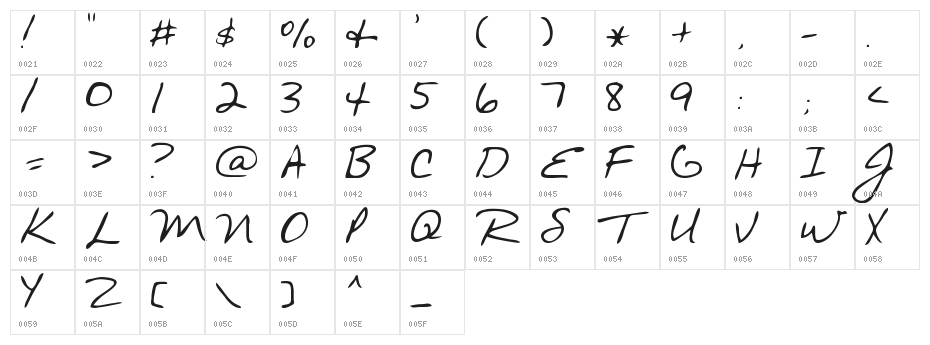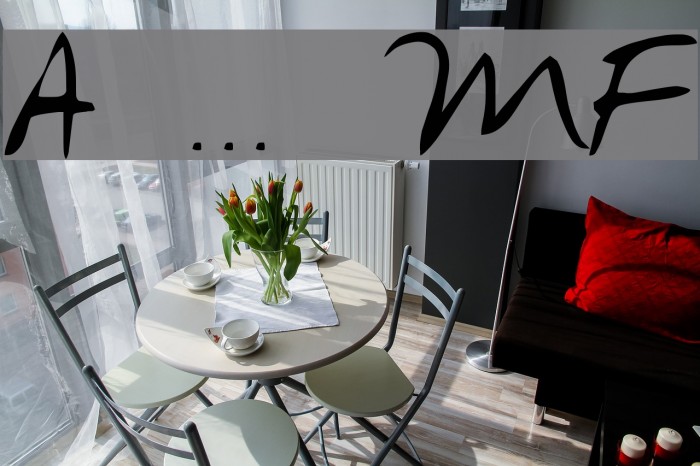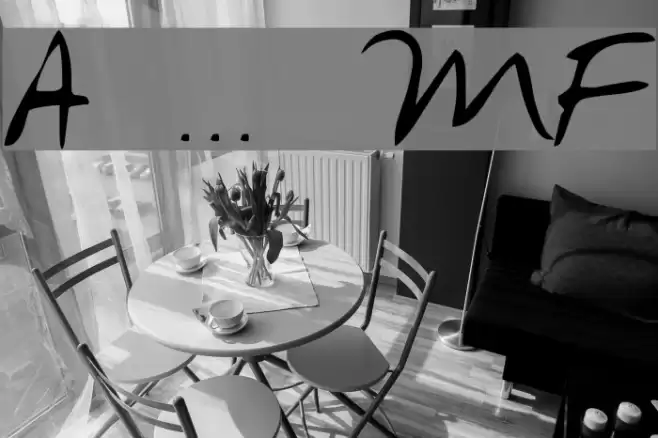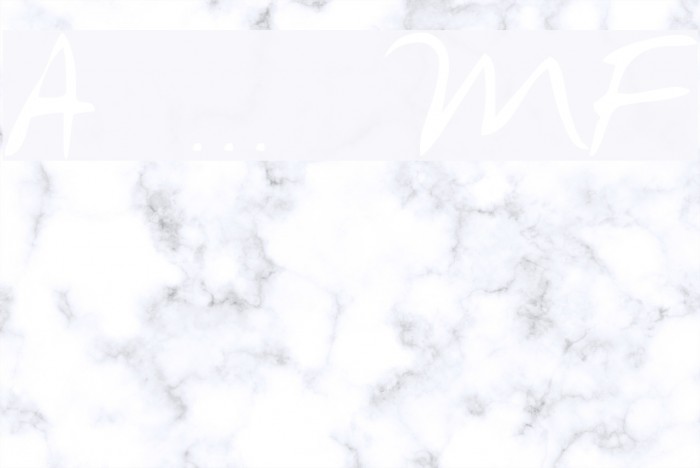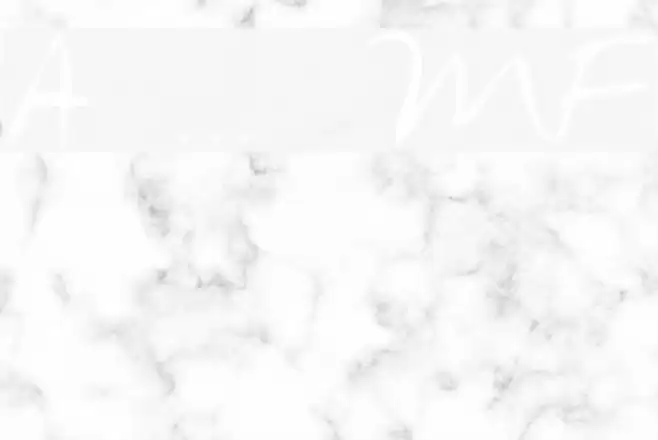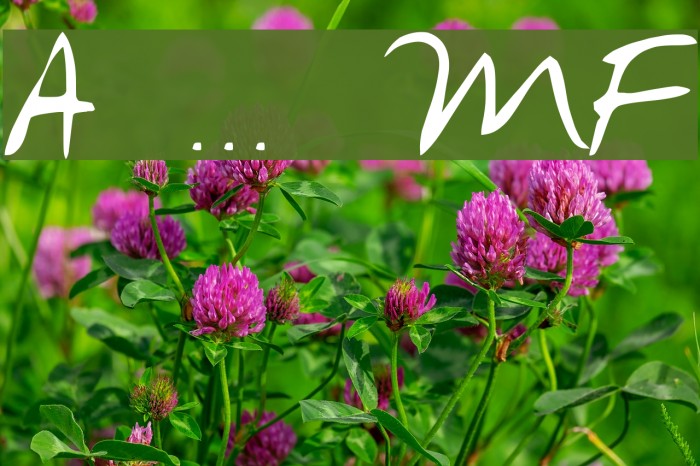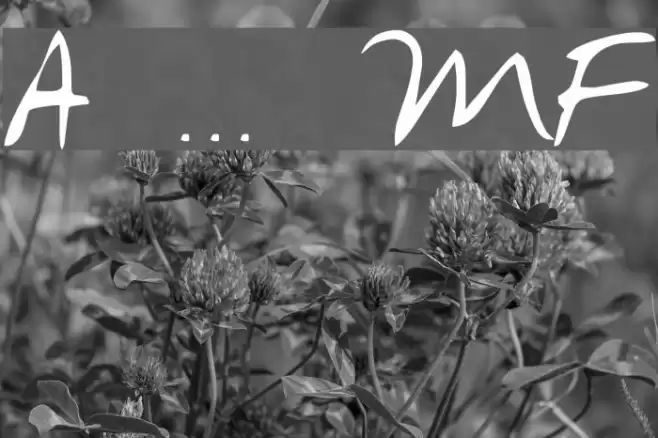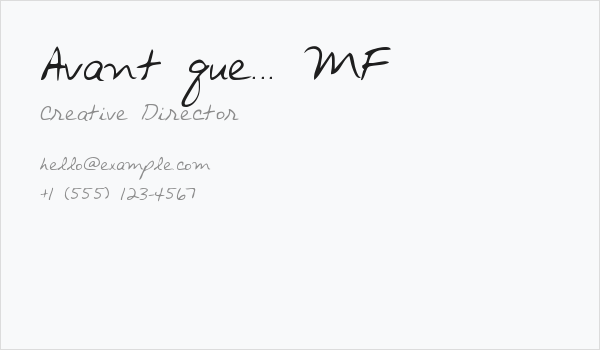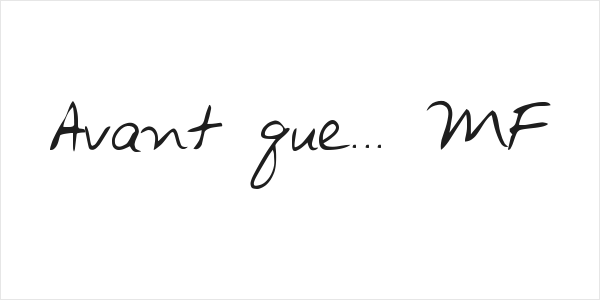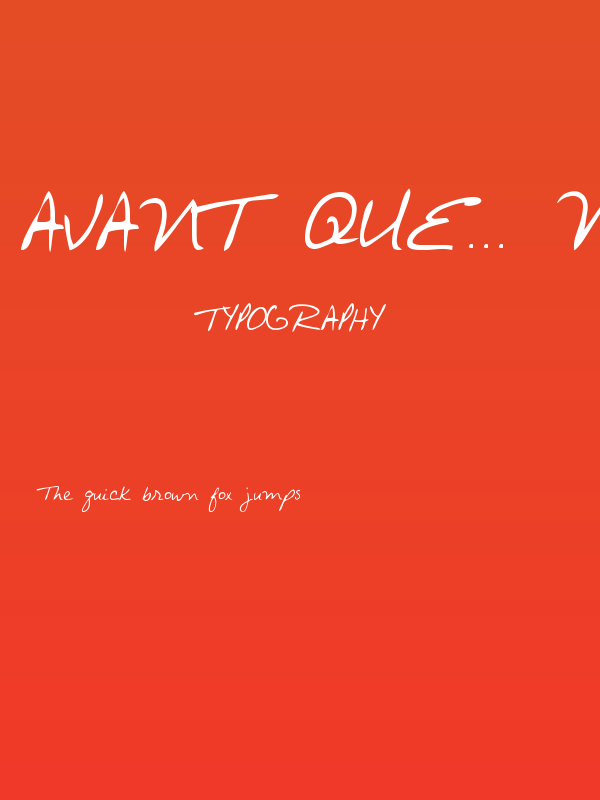
Avant que... MF Font
Avant que... MF Description
This font exhibits a lively and dynamic handwritten style, characterized by its fluid and cursive strokes. The letters are slightly slanted, adding a sense of motion and elegance. Uppercase letters maintain a consistent height, while lowercase letters feature a playful variation in size and form, enhancing the font's informal and personal touch. The numbers are bold and clear, ensuring readability. Special characters are creatively integrated, maintaining the overall aesthetic. This font is ideal for projects that require a personal, friendly, and approachable feel.
| Overall Style | Casual, Personal, Friendly |
| Use Case | Headlines, Invitations, Personal notes |
| Proposed Projects | Greeting cards, personal invitations, casual branding, social media graphics, and creative projects that benefit from a personal touch. |